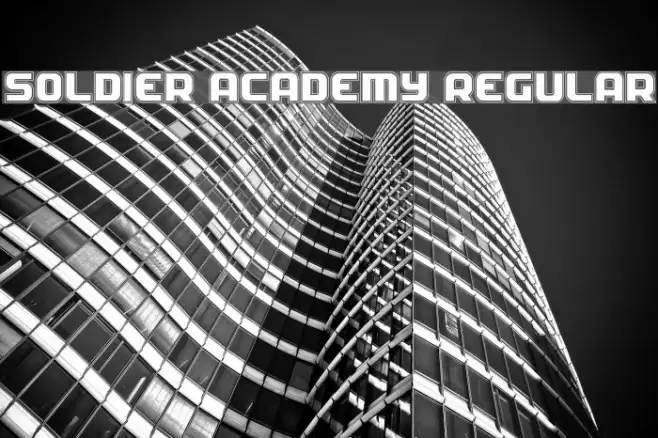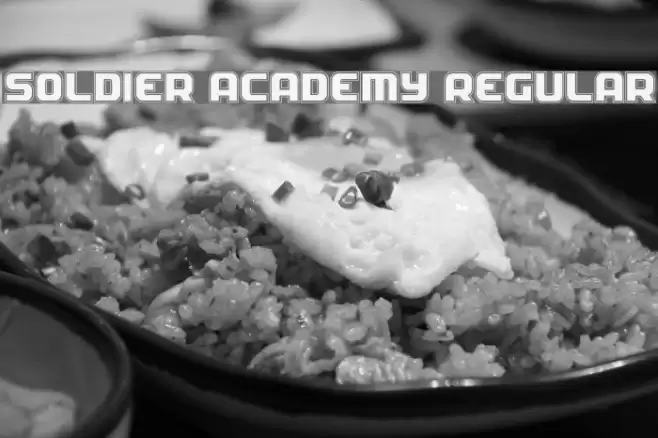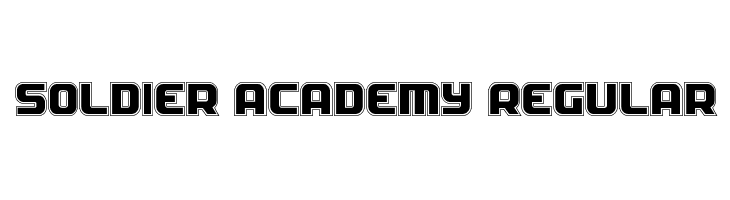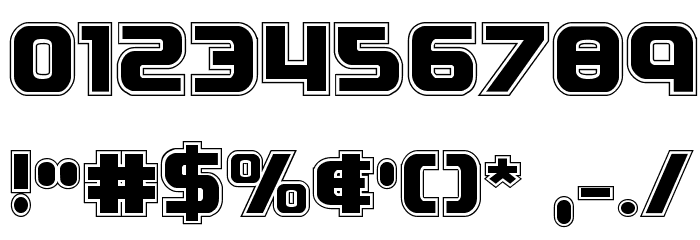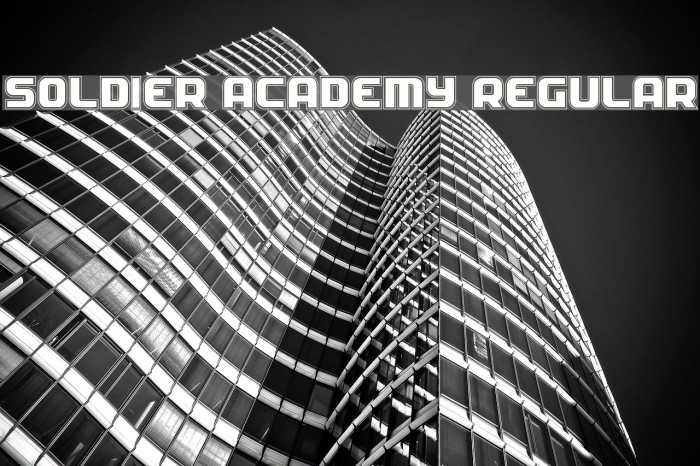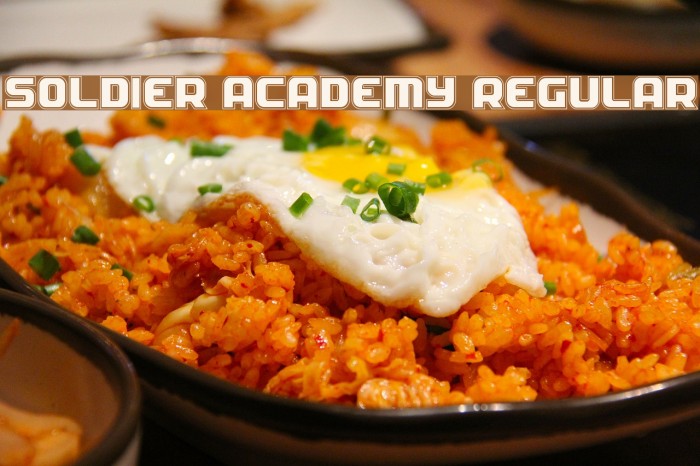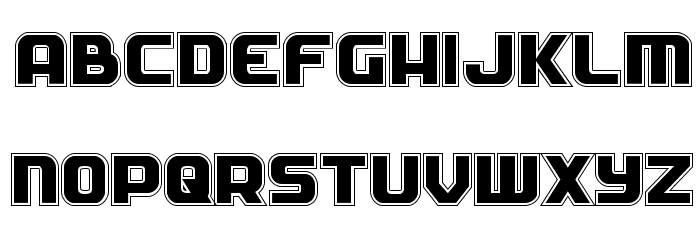
Soldier Academy Regular Font
Soldier Academy Regular Description
This font features a bold, geometric design with a strong, commanding presence. The characters are outlined, creating a striking contrast between the inner and outer edges. The uppercase letters are uniform in height, with a consistent width that gives a sense of stability and strength. The numerals and special characters follow the same bold style, ensuring a cohesive look across all elements. The font's design is reminiscent of military or collegiate themes, making it ideal for projects that require a bold and authoritative typeface.
A bold, geometric font with outlined characters, perfect for strong, authoritative designs from Uncategorized fonts.
- Proposed Projects: Ideal for use in posters, banners, sports team branding, military-themed designs, and any project requiring a bold, impactful typeface.